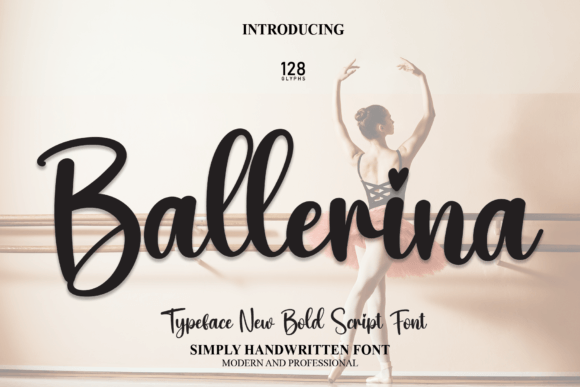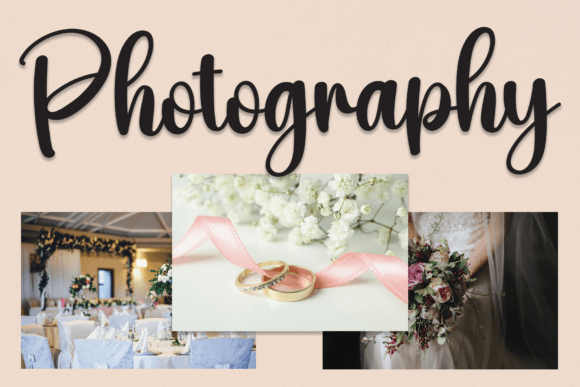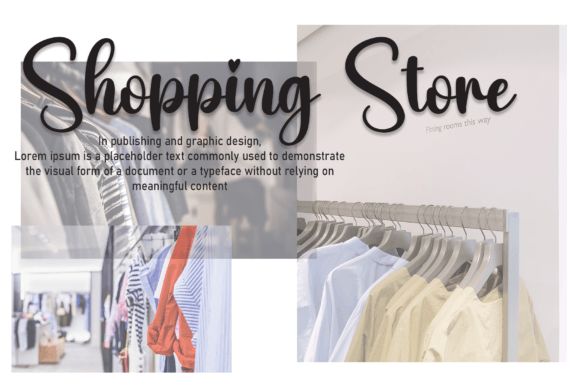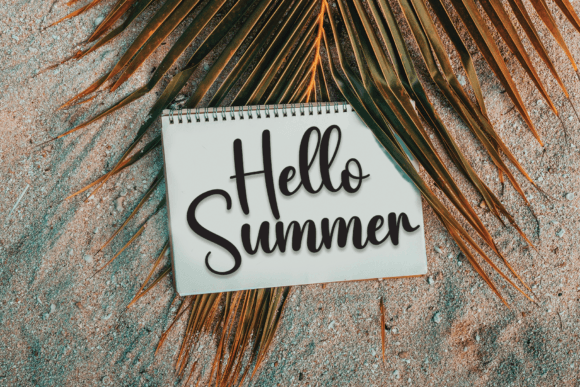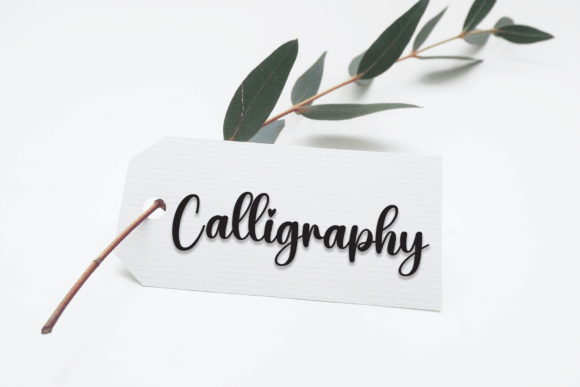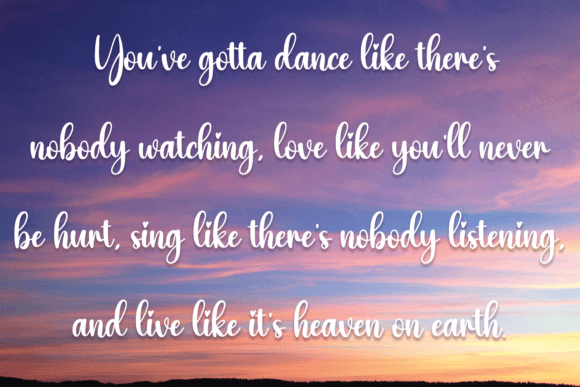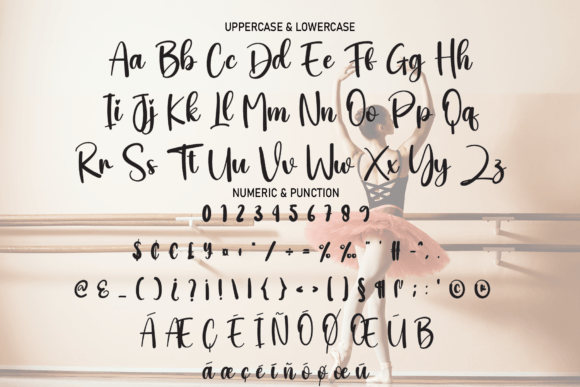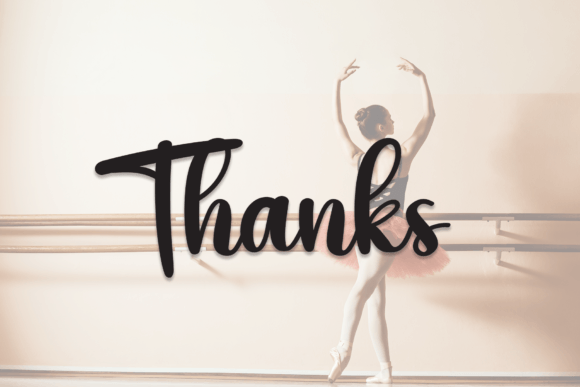
Ballerina Font
About Ballerina Font
Ballerina is a beautiful handwritten font meticulously crafted to offer you an extraordinary experience. This font is an ideal choice for a wide array of creative applications, including wall displays, wedding invitations, social media posts, logos, advertisements, product packaging, product designs, labels, photography, watermarks, invitations, stationery, and any project that calls for a beautiful handwritten touch.
The charm of Ballerina lies in its carefully designed characters, each contributing to an overall aesthetic that is captivating and elegant. Whether employed in digital or print media, this font is versatile and well-suited to add a touch of beauty to your creative endeavors.
Imagine Ballerina enhancing the elegance of wedding invitations, infusing a romantic and personalized feel into the celebration. Envision it gracing social media posts and logos, where its handwritten charm elevates brand identity. Picture it on product packaging, creating a visual experience that resonates with consumers.
The versatility of Ballerina extends to various contexts, making it a valuable asset for branding, marketing, and personal projects alike. Its beautiful handwritten touch is crafted to leave a lasting impression, ensuring that your designs stand out and make an impact.
In essence, Ballerina is not just a font; it’s a creative tool that enriches your projects with a touch of beauty and elegance. Let it be the choice that transforms your creative endeavors into visually stunning and memorable expressions.